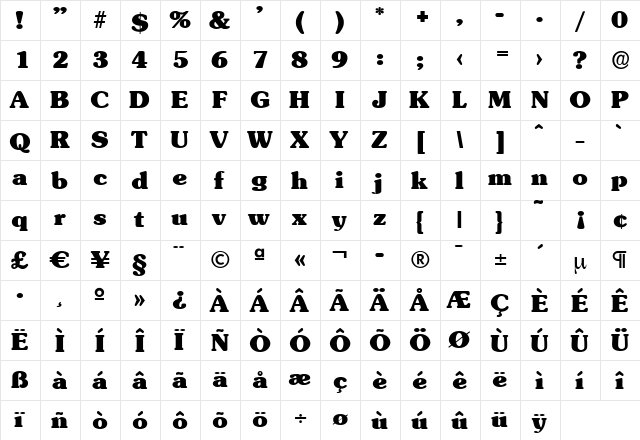
JuliusBecker-Heavy Regular
Design Context for JuliusBecker-Heavy Typeface
JuliusBecker-Heavy offers clean, dependable letterforms without strong stylistic allegiance, making it a practical choice for designers who need flexibility.
Pro Tip: Use JuliusBecker-Heavy in both headline and body roles to test its range before committing to a single application.